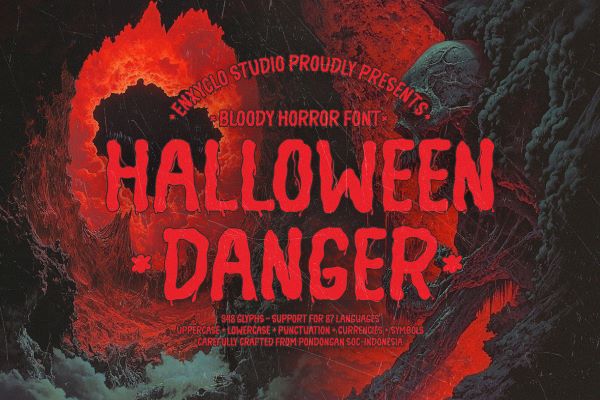
NCL Halloween Danger Font
NCL Halloween Danger by Enxyclo Studio is a rough handwritten bloody freaky font with the kind of freaky, unhinged energy that the name promises and the letterforms deliver. Described by its creator as designed to bring creative ideas to the highest level, it is a typeface built for impact at large point sizes — headlines, billboards, posters, and titles where the raw, dripping character of the letterforms can fully assert themselves. Despite this display bias, it retains its unsettling personality at smaller sizes too. Free for personal use.
NCL Halloween Danger is a rough handwritten bloody horror display typeface in our free font collection, designed by Enxyclo Studio — a type design studio based in Sukoharjo, Indonesia, with a practice focused on expressive horror and dark-themed display typefaces crafted for Halloween, branding, and high-impact editorial design. Browse our full library of free fonts and discover more distinctive typefaces crafted by independent designers around the world.